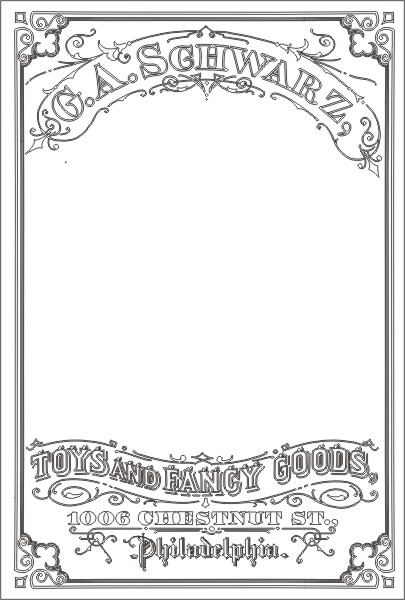
G.A.Schwarz, Toys & Fancy Goods
I just finished up this request to replicate this old
victorian era trade card into a reverse glass sign.
Came out pretty good, truth be told.
Wow Larry. Very nice. I like the detail in all of it but the border is really sweet. Excellent work as always.
Very nice Larry! I'm sure the client was overly happy.
Nice Gildin, and reverse glass painting!
Larry very nice. What is the size and can you give a time frame on a piece like this?
I surely can....
The finished framed piece is 26" x 36",
I took right around 70 hours, over 3 months.
Larry... in the corners it looks like you did an inlay or could be copper leaf ( the little diamonds ). On the bottom they stand out... the left top is in slight shadow but looks like it's there but the right corner however looks hollow. Am I seeing it correctly or is it my eye's have not recovered from viewing Helga's leg that Dan posted in the DM12 thread.
The outer embossed border line was created via face down acid embossing.
The inner embossed border line was created via face up acid embossing.
I trust you can see the difference in these two techniques.
Both have been water gilded 23K, then outined to leave a mirrored gold
brightline around the acid embossed lines.
The two diamond shapes are filled with abalone.
The circle, with mother of pearl. The "club" shapes are filled with glass glitter.
The other shapes are just filled with the background paint color.
So now ya know.....
Larry the closeup photo really is nice the corners have more detail then I first observed... the silver scrolling it that top etched (mica paste) ? If you have any other detailed photos I and others I'm sure would enjoy seeing them.
Pretty sweet there Larry.
Very, Very nice
The G.A.Schwarz text is 23K water gild into face up acid embossed outlines,
with blended japan color letter centers, with a handpainted split shade.
The secondary text is 22K moon gold, water
gilded into face down acid embossed letters,
with a slight darker background color drop
shadow, and a metalic paint fill on the drop
shadow line.
Reverse handpainted pictorial done in
japan colors. The Christmas tree ornaments
are colored with transparent screen inks,
then surface gilded with 16K pale gold.
"Toys and Fancy Goods" is 23K water gild into face up acid embossed
outlines & drop shadow line. Abalone fill on letter centers. Slightly darker
background color on drop shadow. Scroll work is face up acid embossing
with 16K pale gold water gild.
"1006 Chestnut St. & Philidelphia" are both 23K water gild into face
down acid embossing.
Excellent, Mr. White, and very convincing.
Tell me, what method did you use, I'm mean did you do this free hand?
Work of art Larry!
. Great job as always and like the style, reminds me of Daddy Fine Gold's work. must of taken a while to make...